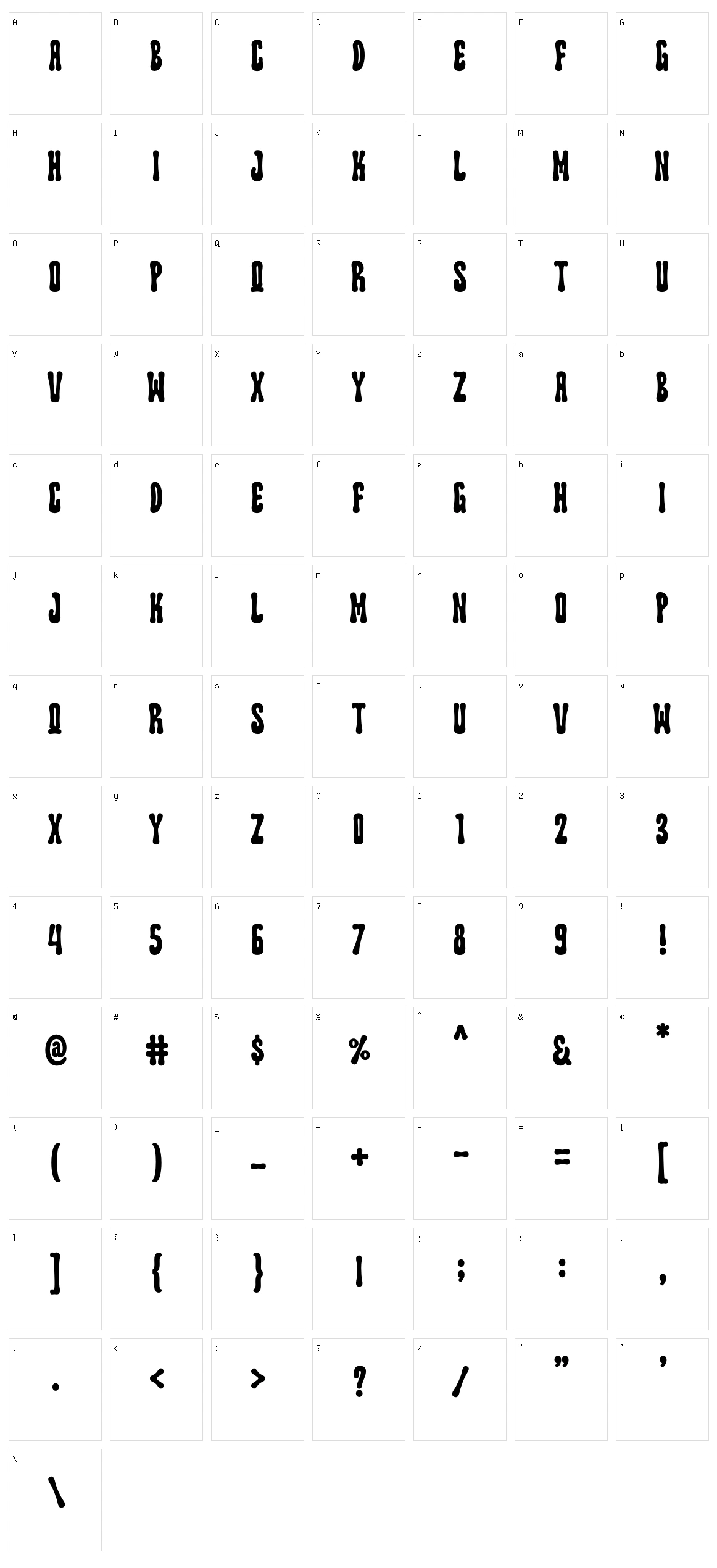
The free font Monday Groovy is carefully designed by Hoperative, showcasing a thoughtful balance of creativity and usability and falls under the Groovy font style. When you download the ZIP file, it contains only 10.95 KB of font files, making it lightweight and quick to download. Please review the license details below to understand permitted usage and distribution rights. If license information is not available, we recommend using this font for personal projects only or contacting the author directly for commercial usage permissions.